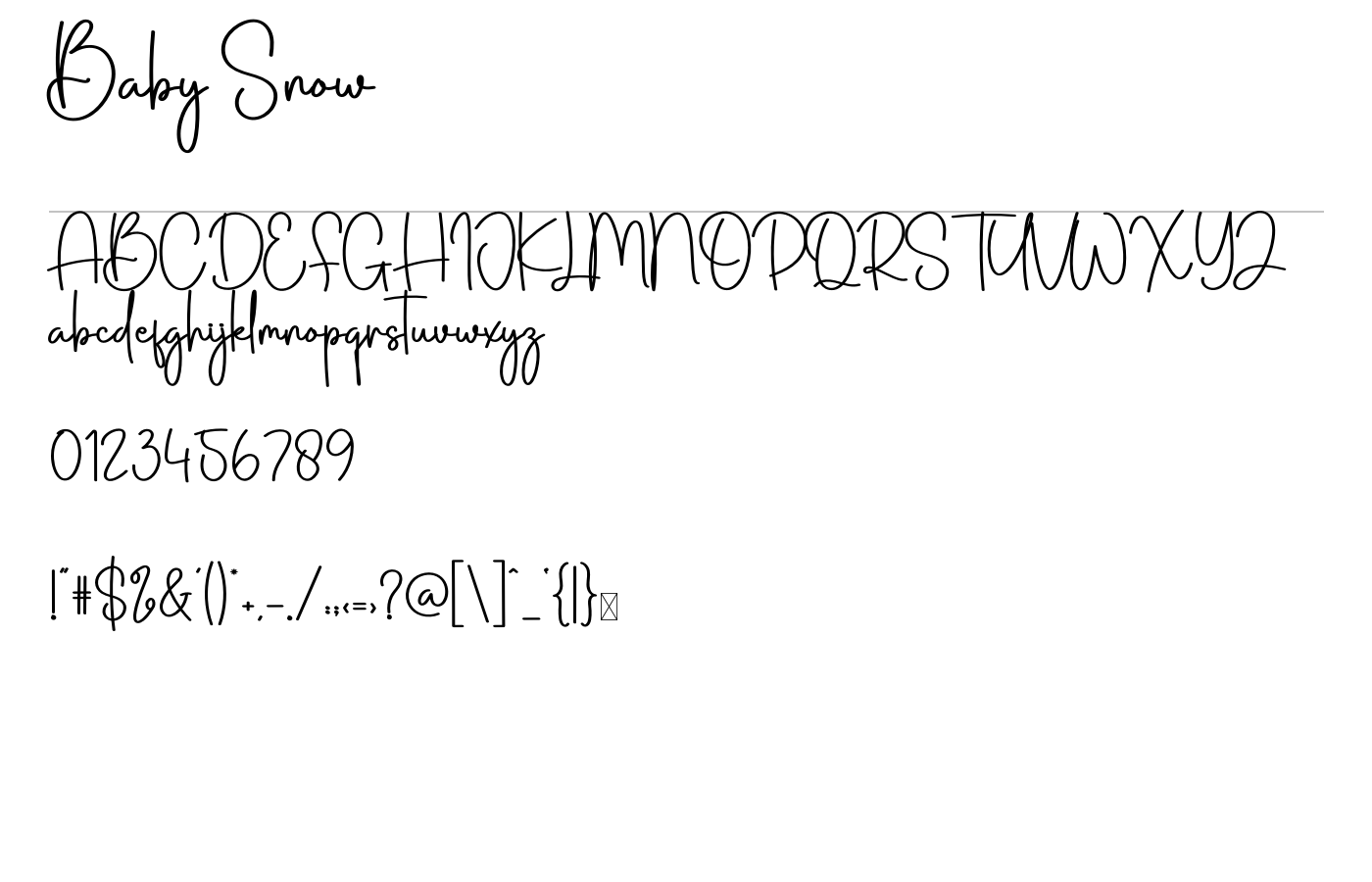
Baby Snow is a delicate and playful handwritten script font characterized by its tall, slender letterforms and flowing, organic strokes. Its light weight and slightly irregular, casual style give it a charming, friendly feel, making it ideal for personal projects, invitations, and branding that seeks a whimsical, approachable touch. This font works especially well for creative uses where a sense of warmth and personality is desired.
Baby Snow Font
About Baby Snow Font